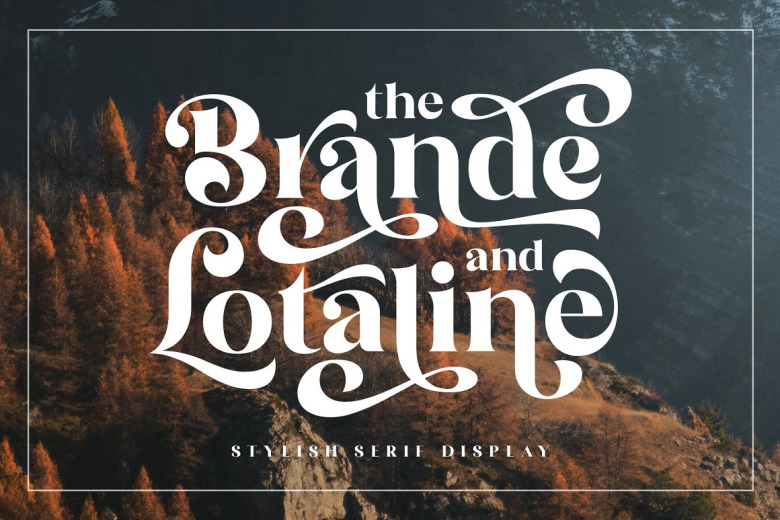
The Brande and Lotaline Font
The Brande and Lotaline is a classy modern serif typeface. A beautiful bold serif specially designed for display. Inspired by modern fashion and classic typography, this font equipped with hundreds of alternative characters and ligatures.
The Brande and Lotaline typeface represented luxurious, elegant, glamour, fashion, and wealthiness. This font works perfectly for logotype, invitation, cards, magazine, apparel, fashion, lifestyle, poster, social-media kit, and many more!